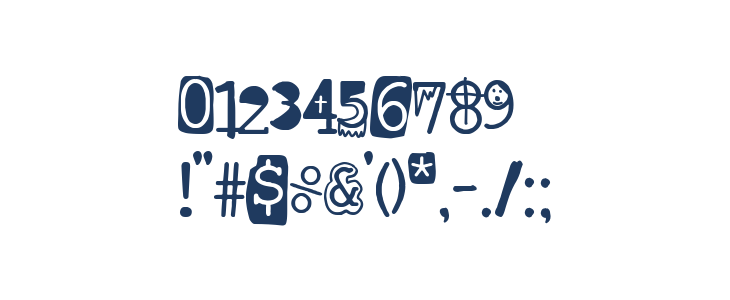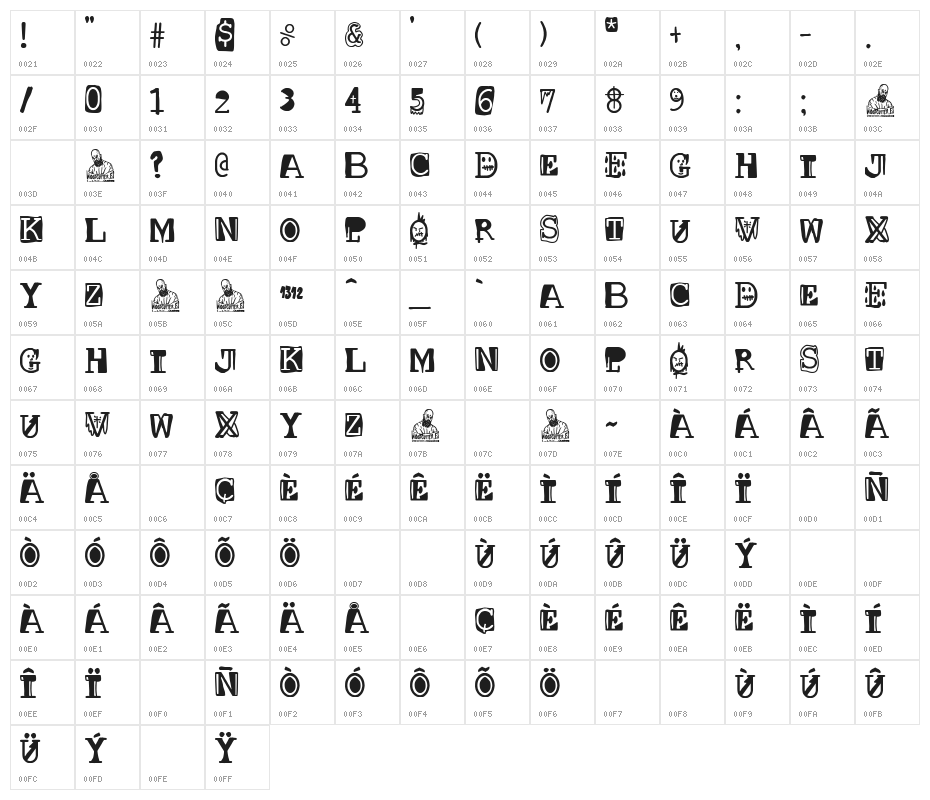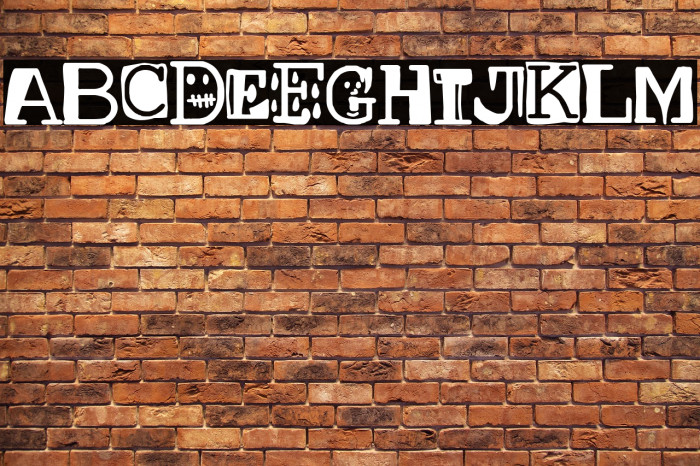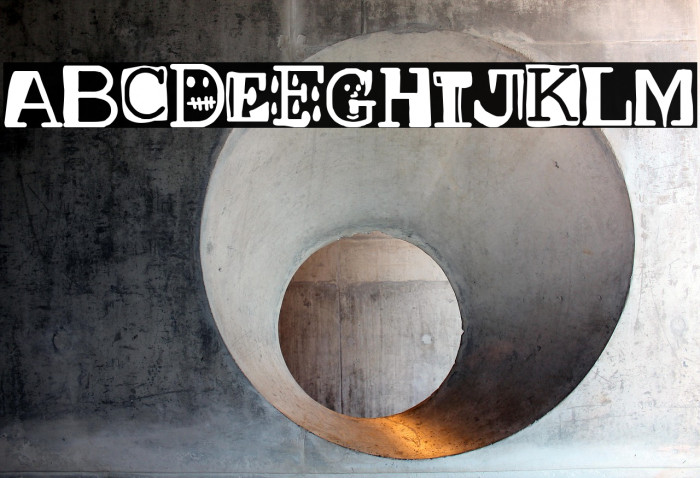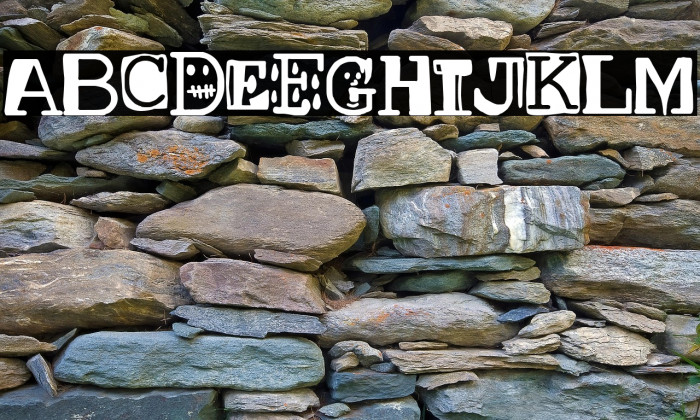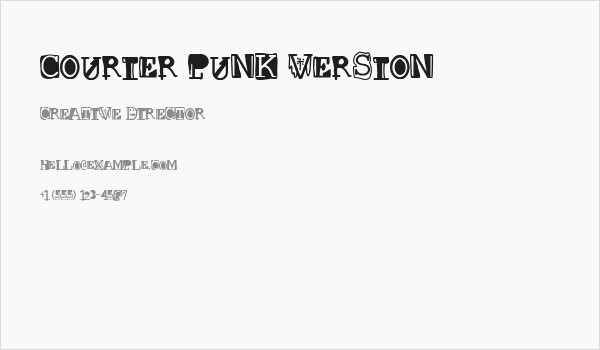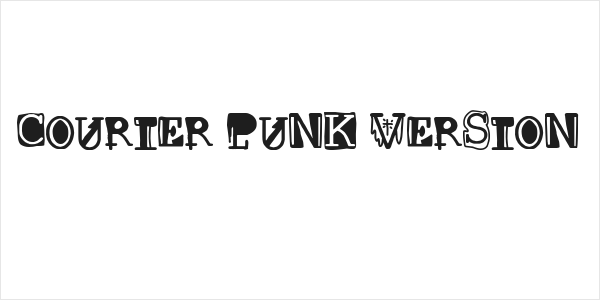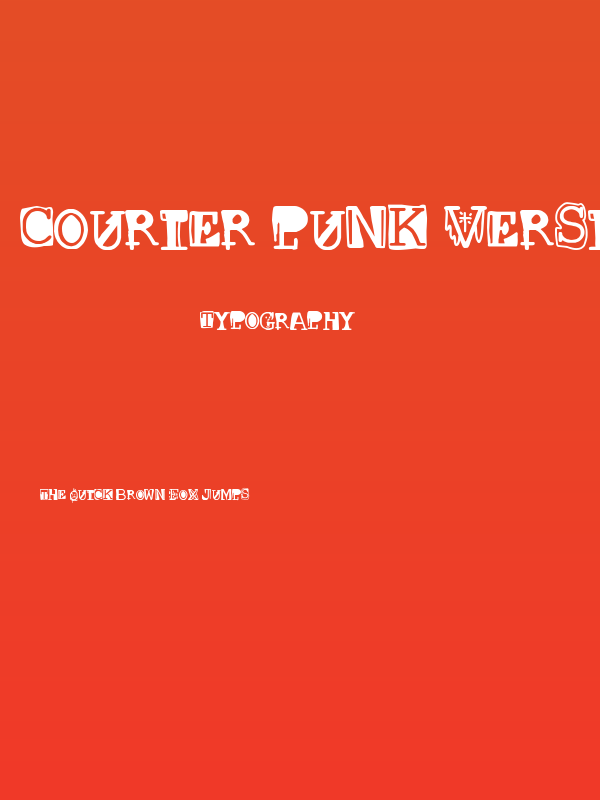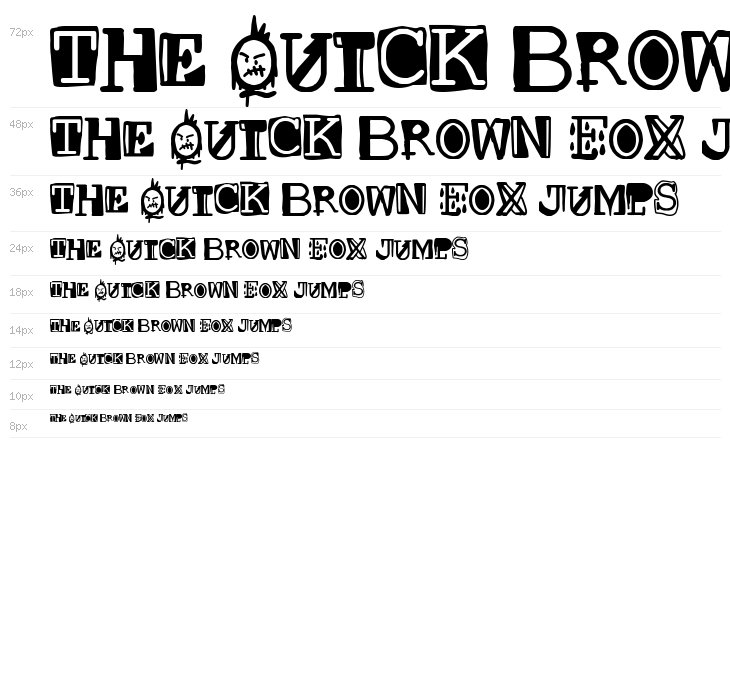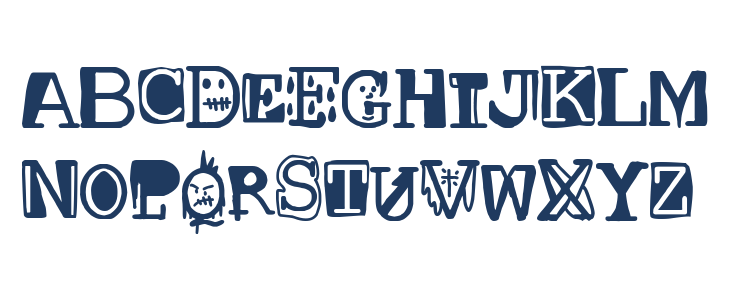
Courier punk Version Font
Courier punk Version Description
This font exudes a bold and rebellious aesthetic, combining elements of punk and industrial design. Each character is uniquely styled with a mix of sharp edges, irregular shapes, and decorative elements, giving it a distinct, edgy look. The uppercase and lowercase letters maintain a consistent height, while numbers and special characters are creatively integrated with unique embellishments. The font's overall appearance is striking and unconventional, making it ideal for projects that require a strong visual impact.
| Overall Style | Modern, Punk |
| Proposed Projects | Ideal for music album covers, event posters, graffiti art, and branding for alternative fashion labels. |